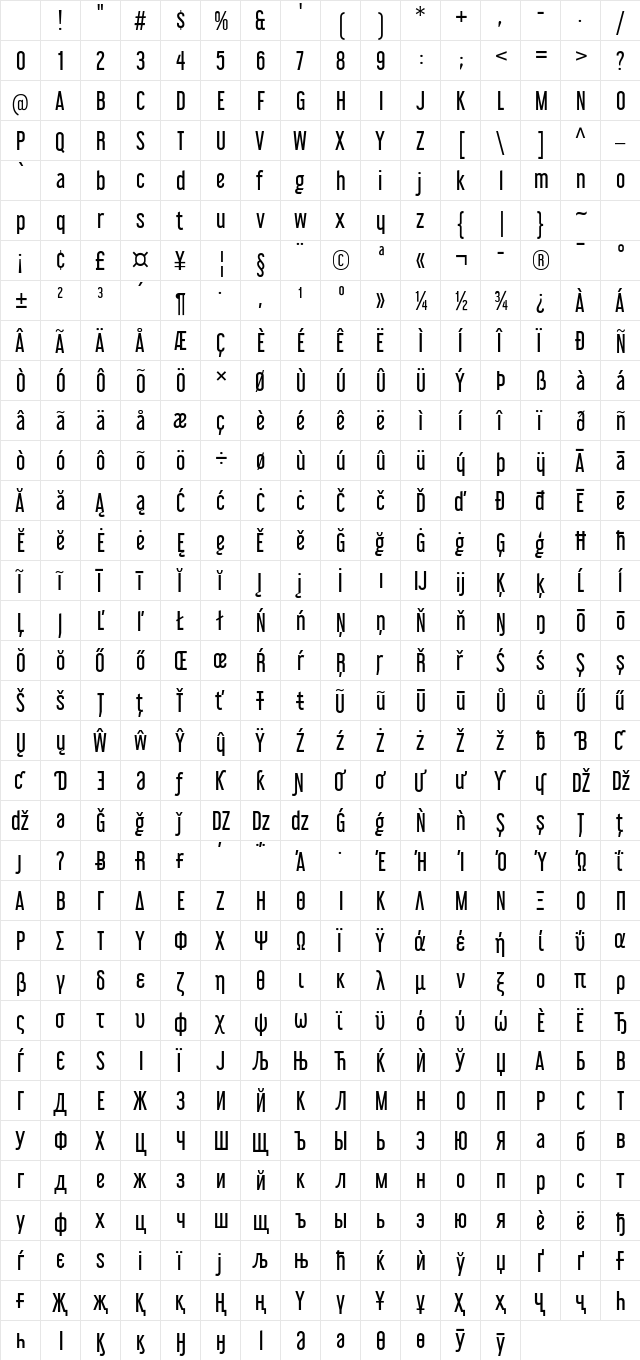
Complete Libel Suit Regular glyph index. Displaying only characters natively supported by Libel Suit Regular font.
Libel Suit is a composed and adaptable typeface that performs quietly and consistently across a wide range of design contexts.